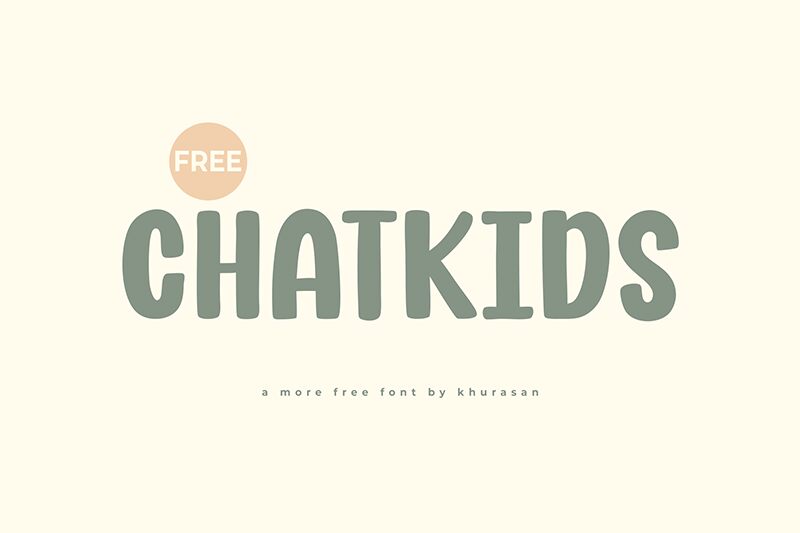
Chatkids
Chatkids font by Khurasan is a cartoon-styled, condensed display font in bold weight and a quirky style. It carries a retro-inspired look with a vintage feel and strong presence. Each of its characters displays slab serif characteristics, and when put together, they create a stylish font with an unusual personality.
The free typeface is almost ready for animation projects related to kids’ entertainment content. It gives additional value to game titles, movie posters, kids’ clothing items (like t-shirts), book covers, flyers, brochures, promotional banners, videos for YouTube channels or social media in general…and eventually much more!